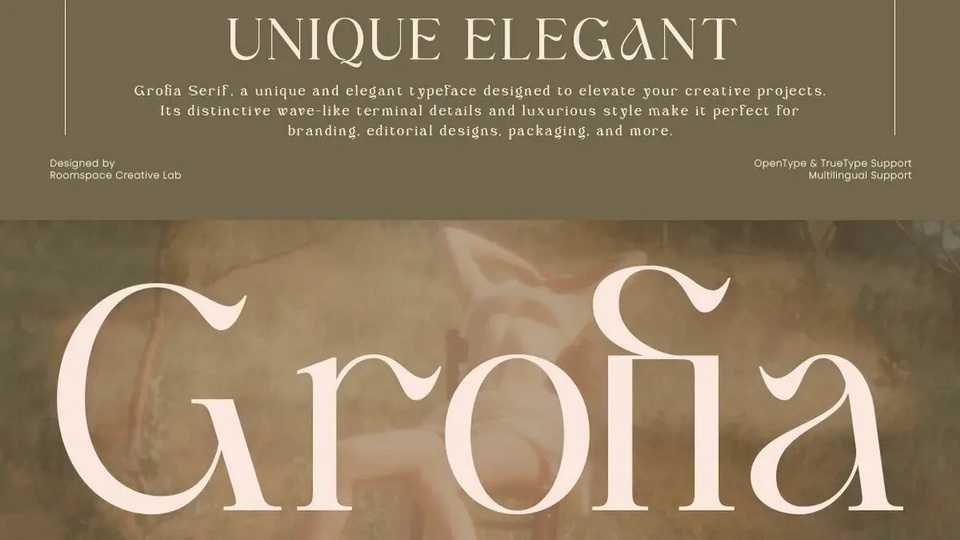
Download Grofia Serif font,, a unique and elegant typeface designed to elevate your creative projects. Its distinctive wave-like terminal details and luxurious style make it perfect for branding, editorial designs.